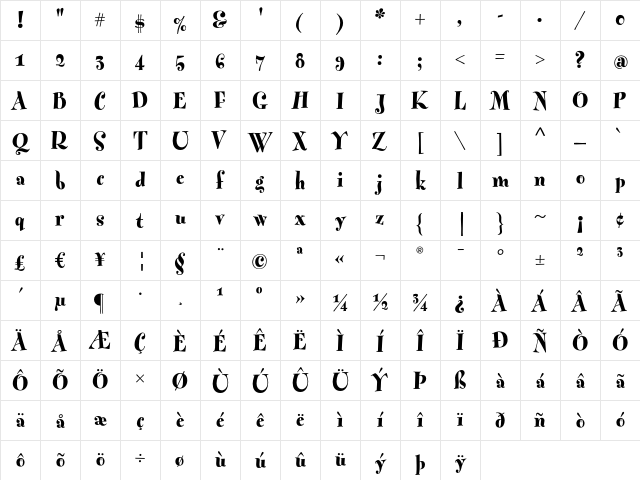
Fontesque ExtraBold Free Font
Fontesque ExtraBold
Design Context for Fontesque
Fontesque is a composed and adaptable typeface that performs quietly and consistently across a wide range of design contexts. Its bold stroke weight gives it real presence on the page.